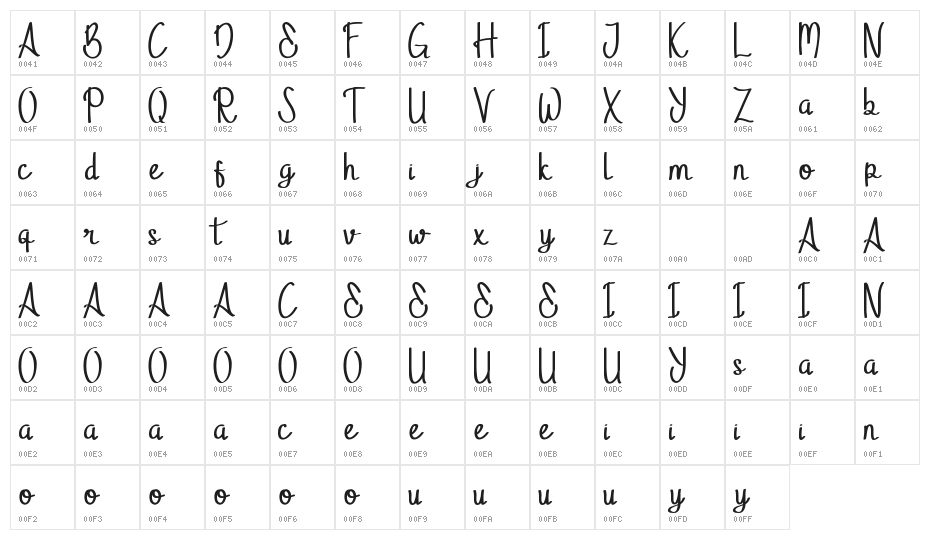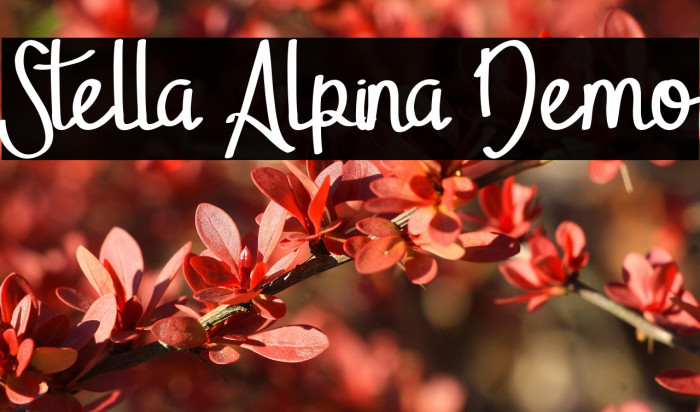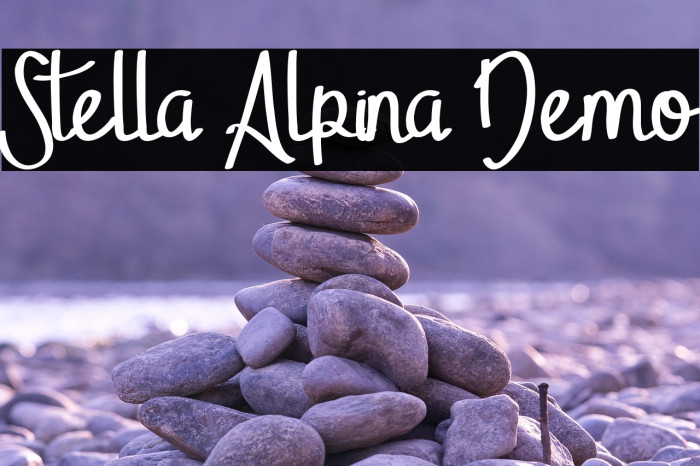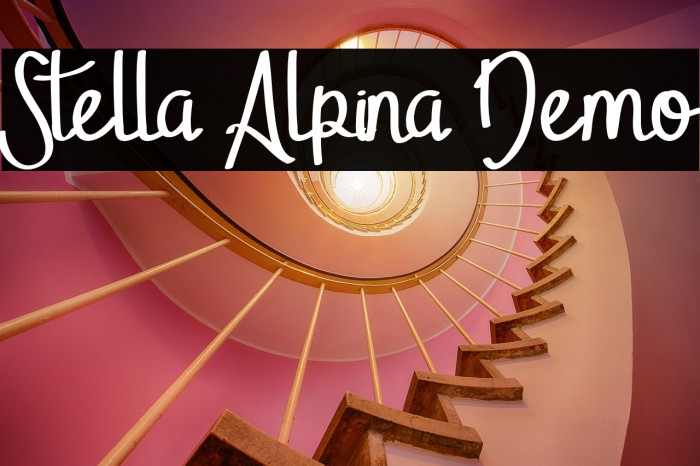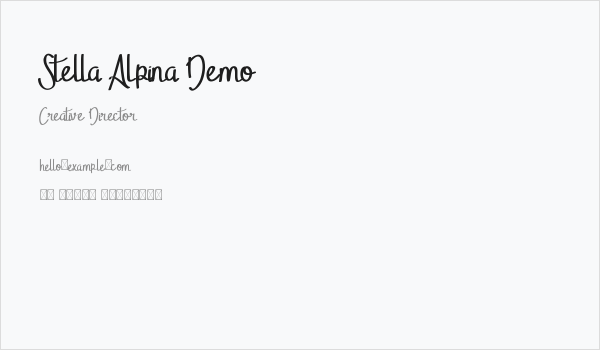
Stella Alpina Demo Font
Stella Alpina Demo Description
This font features a playful and dynamic handwritten style, characterized by its flowing and interconnected letterforms. The strokes are bold and expressive, giving a sense of movement and energy. The uppercase and lowercase letters maintain a consistent style, with some letters featuring unique loops and curves that add to its charm. The font's informal and artistic nature makes it suitable for creative projects that require a personal touch.
| Proposed Projects | Ideal for greeting cards, invitations, posters, and branding projects that seek a personal and artistic flair. |